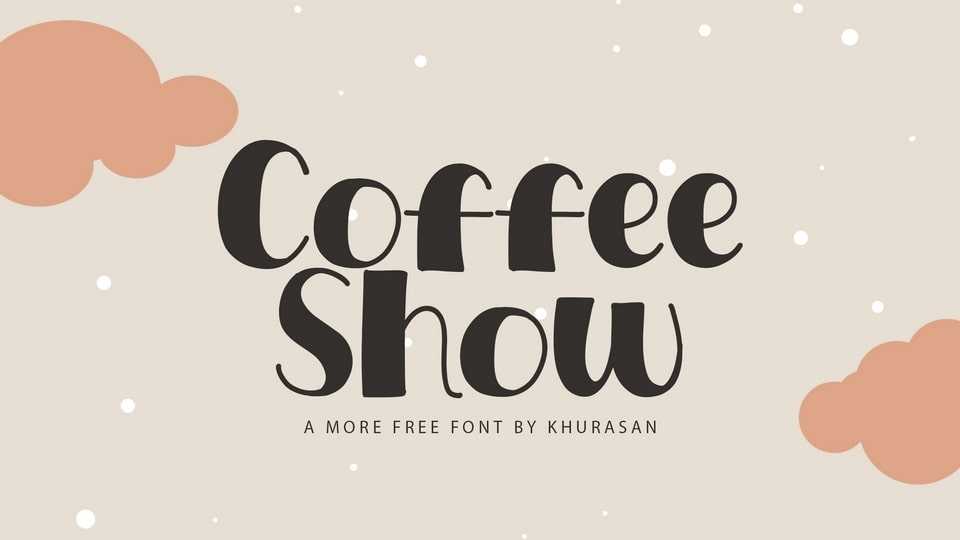
Download Coffee Show font, a cute hand-drawn typeface with high-contrast strokes, infusing each character with a playful energy. Coffee Show font is crafted to balance cuteness and clarity, making it perfect for projects that demand a delightful yet highly readable touch.